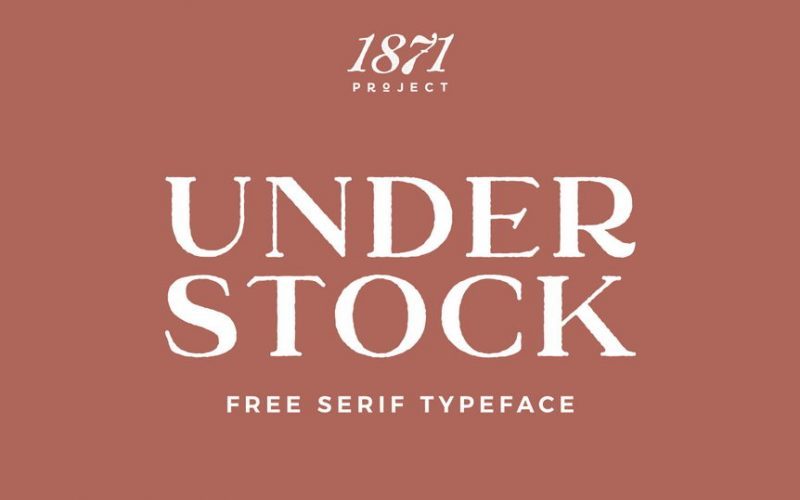
Understock Font Family
Understock is the latest vintage creation from 1871 Project. This font is a unique take on a vintage serif featuring a ton of cool characters that will set your designs apart. It includes 3 styles: Regular, Rough & Round, so you’ll be able to fit the exact style of your project.